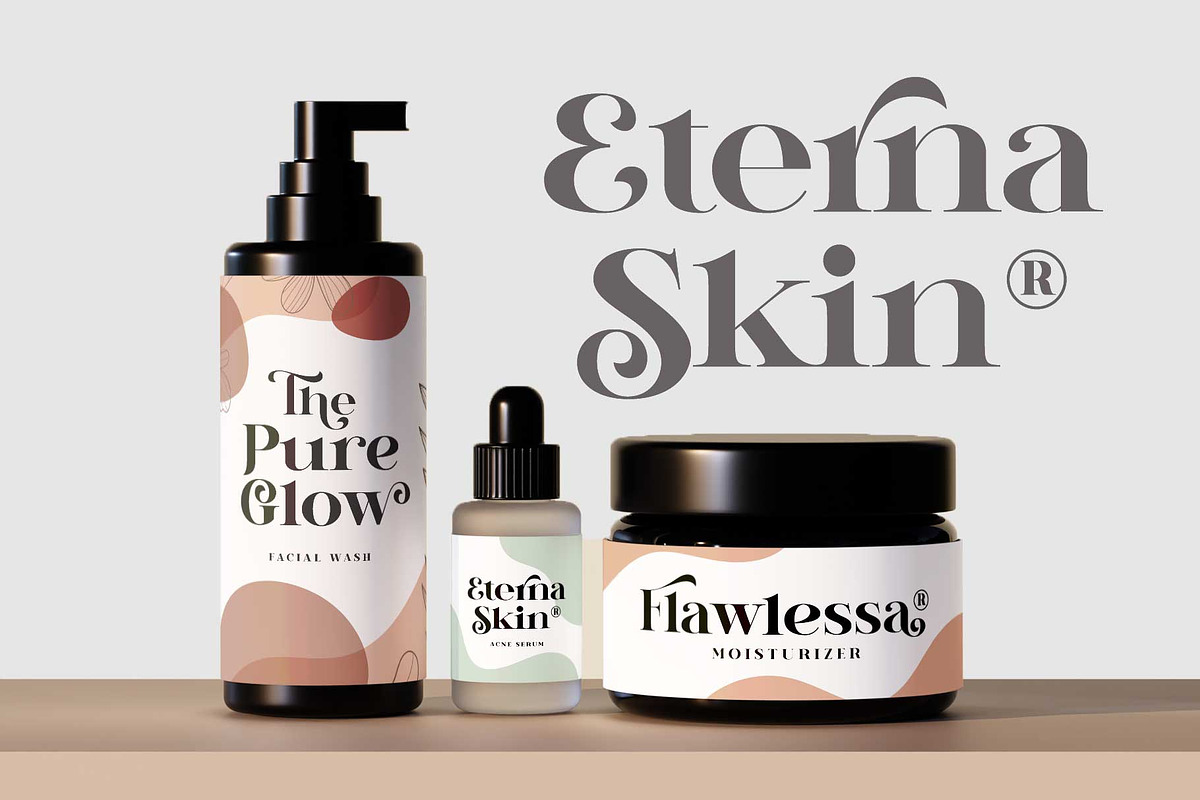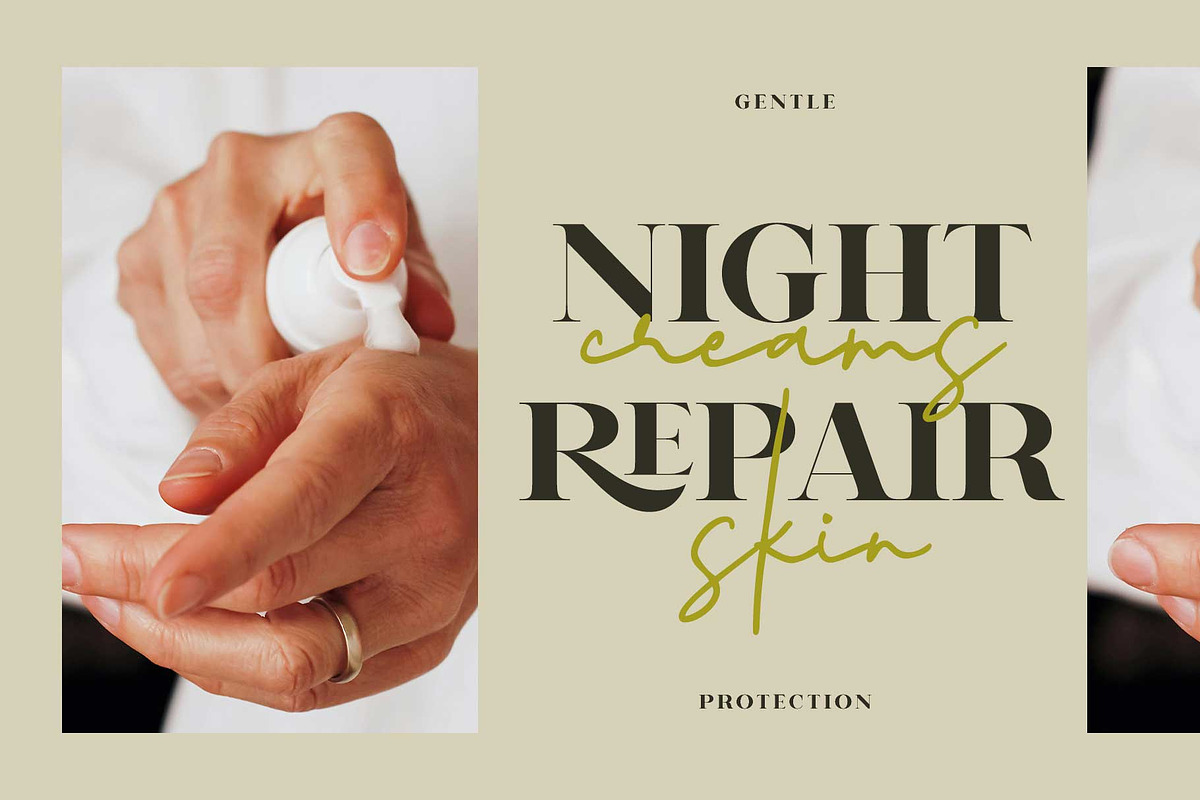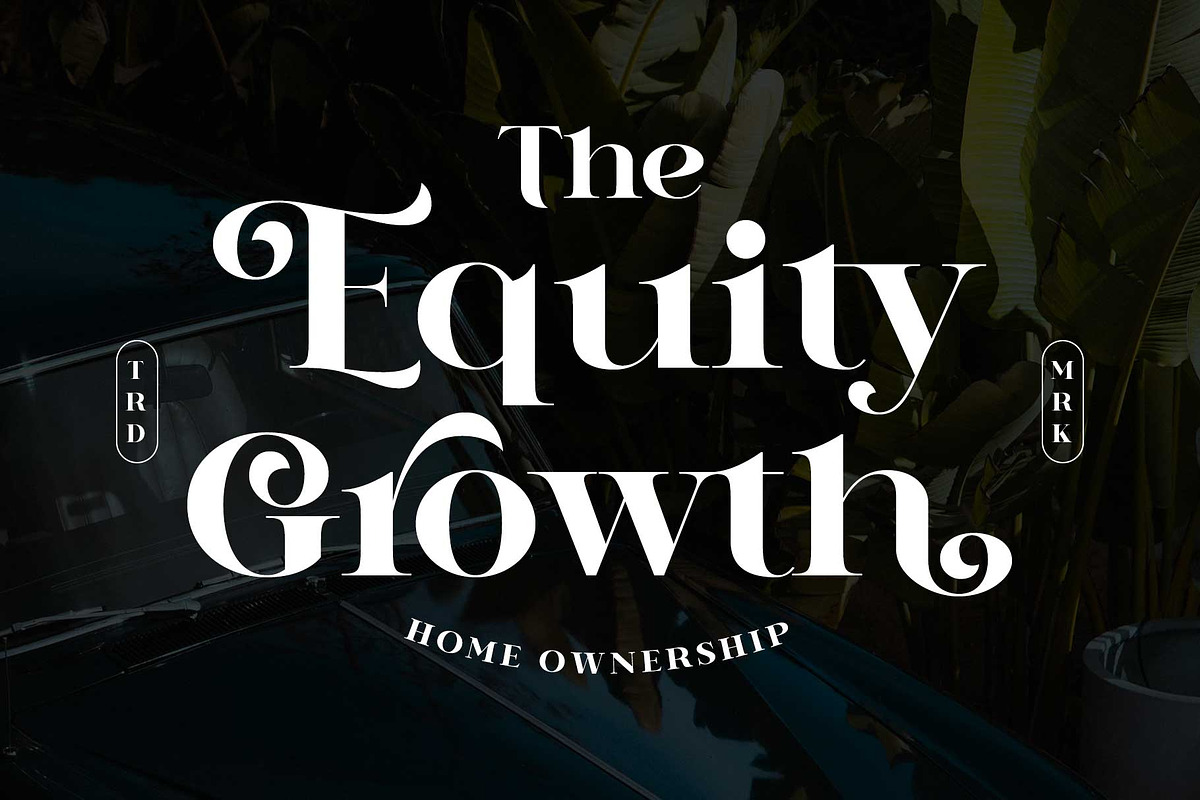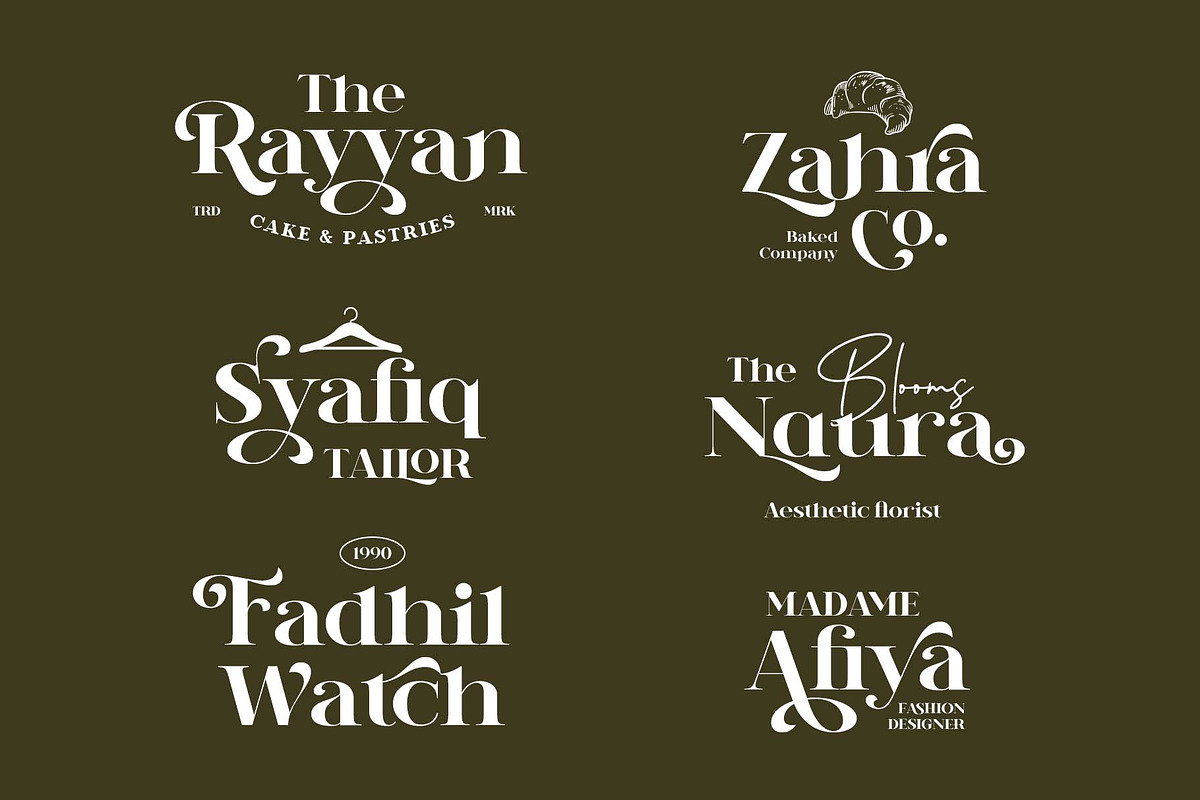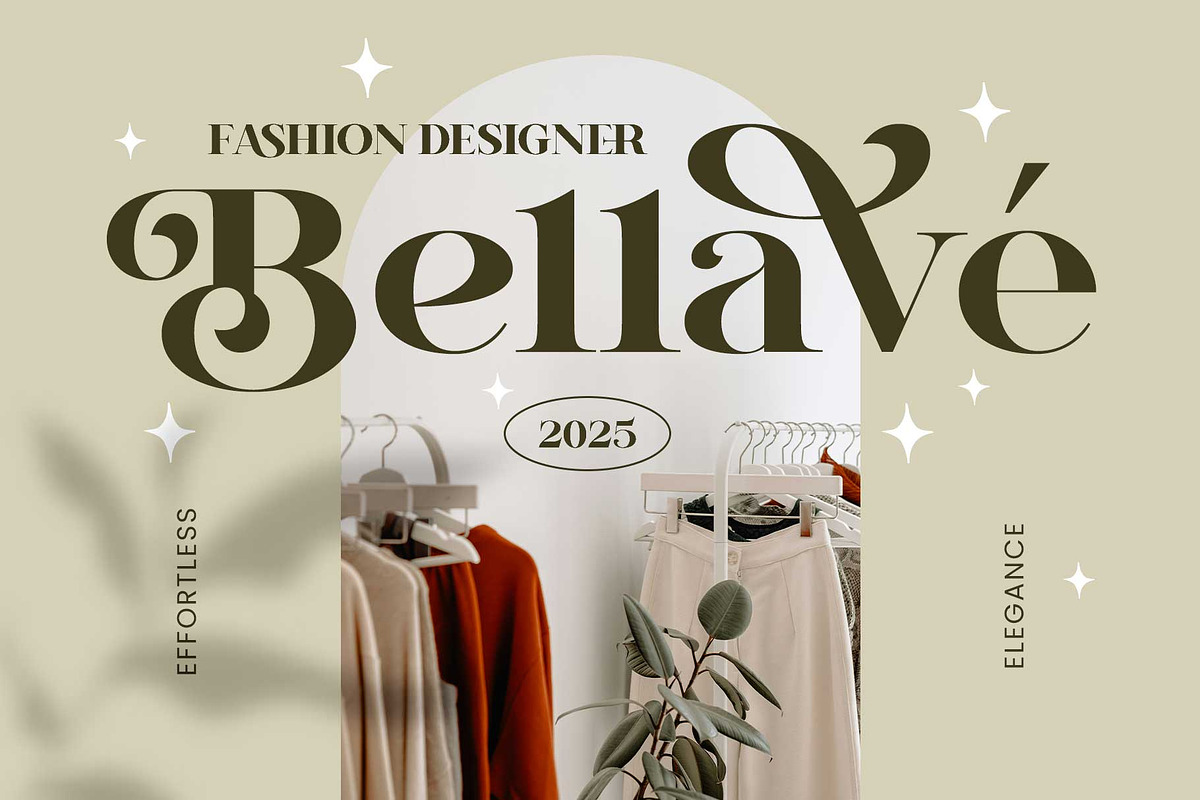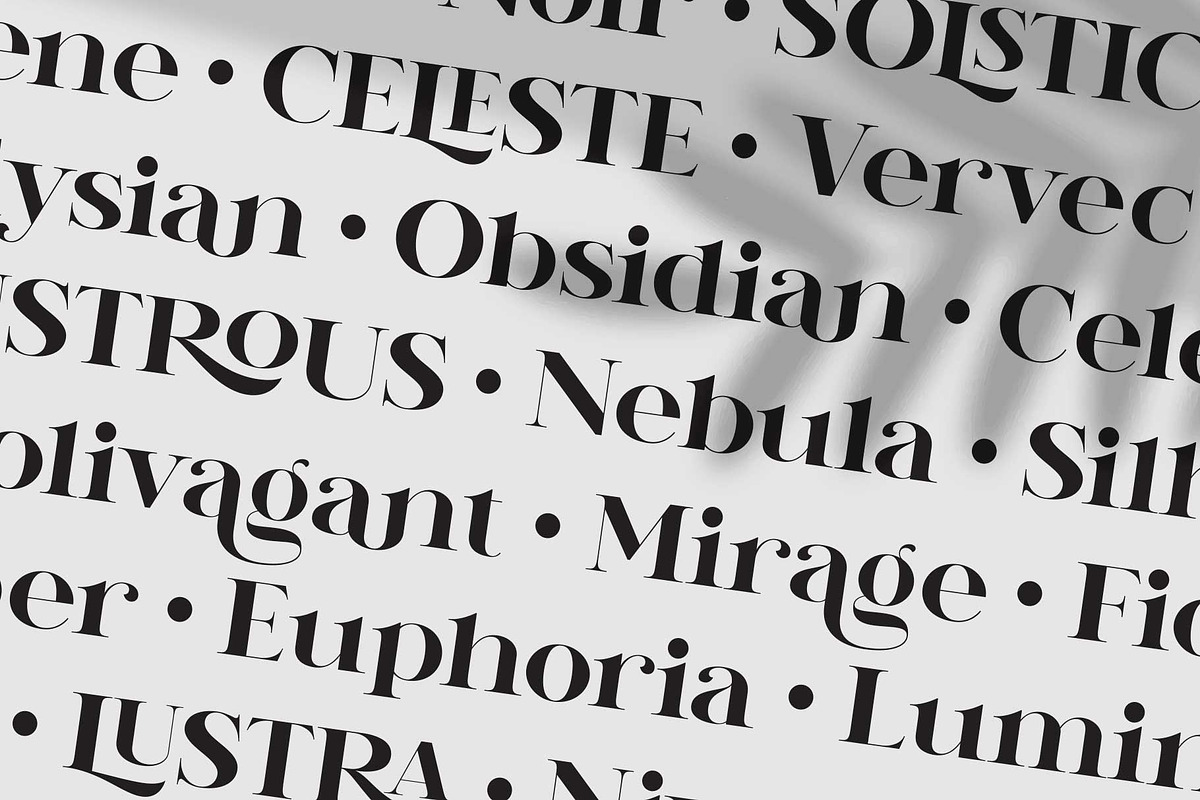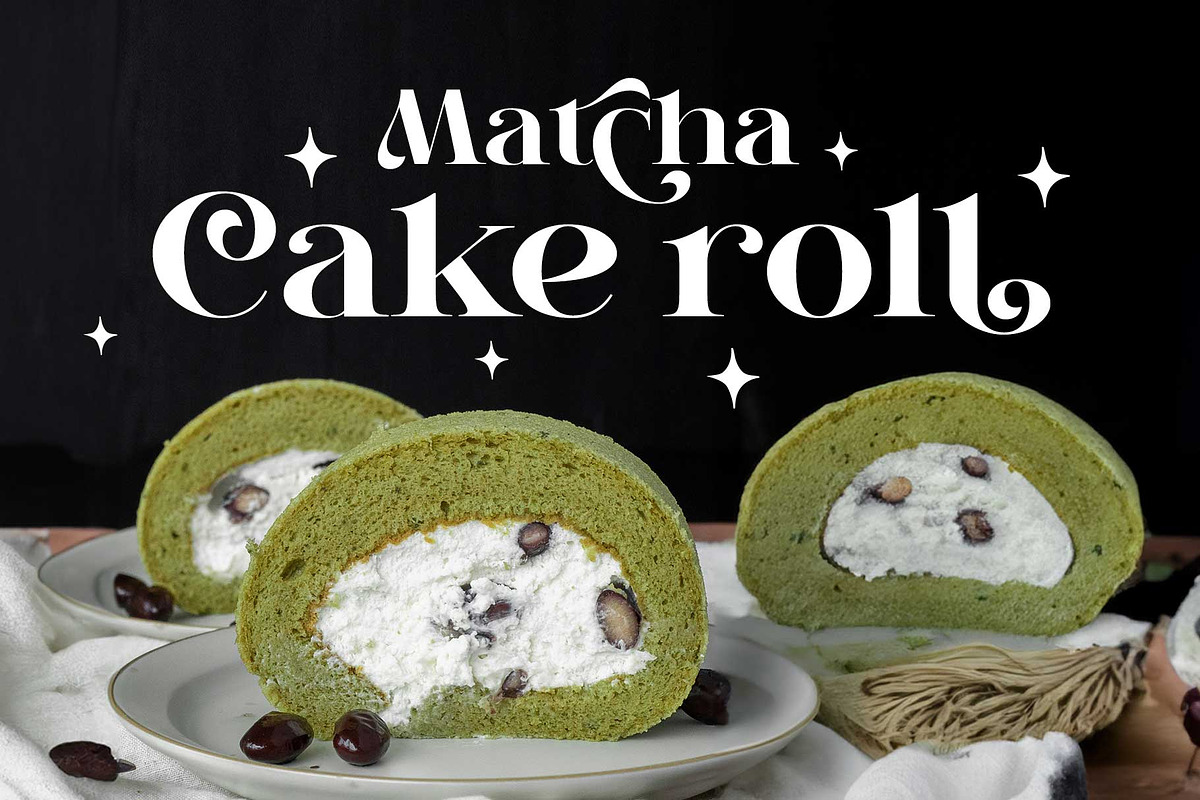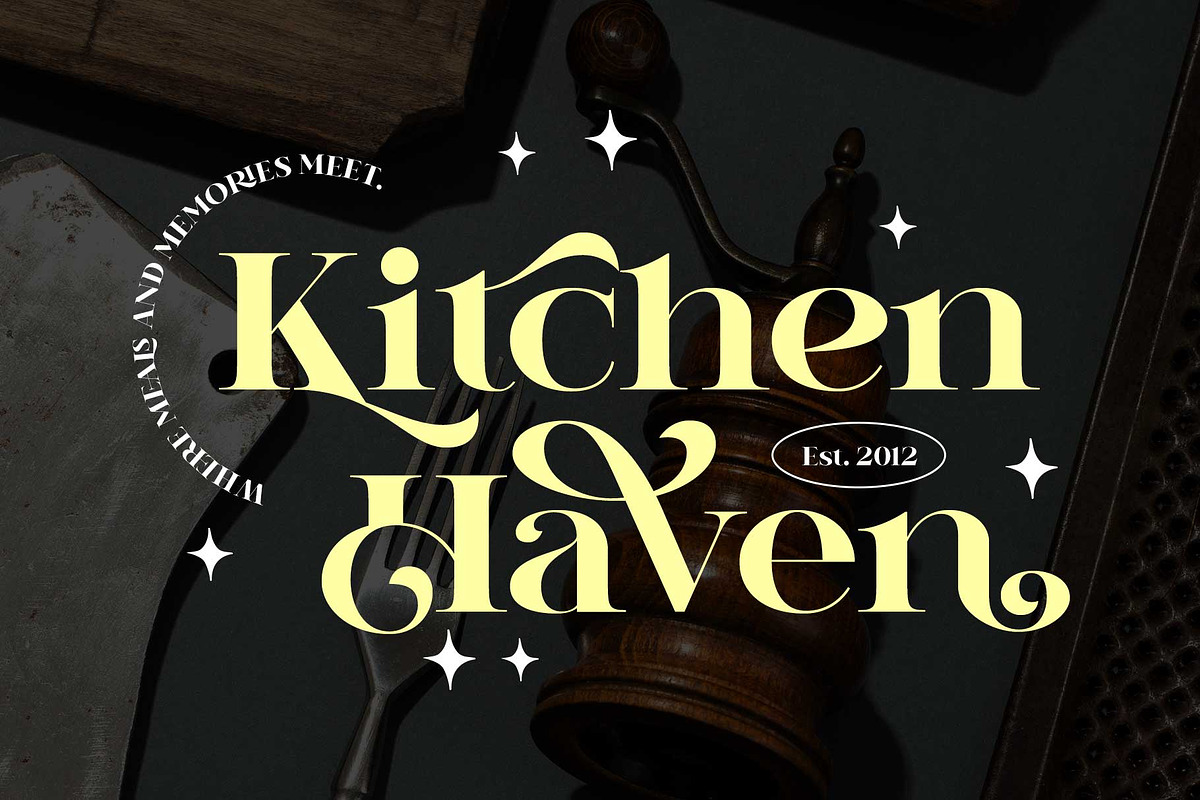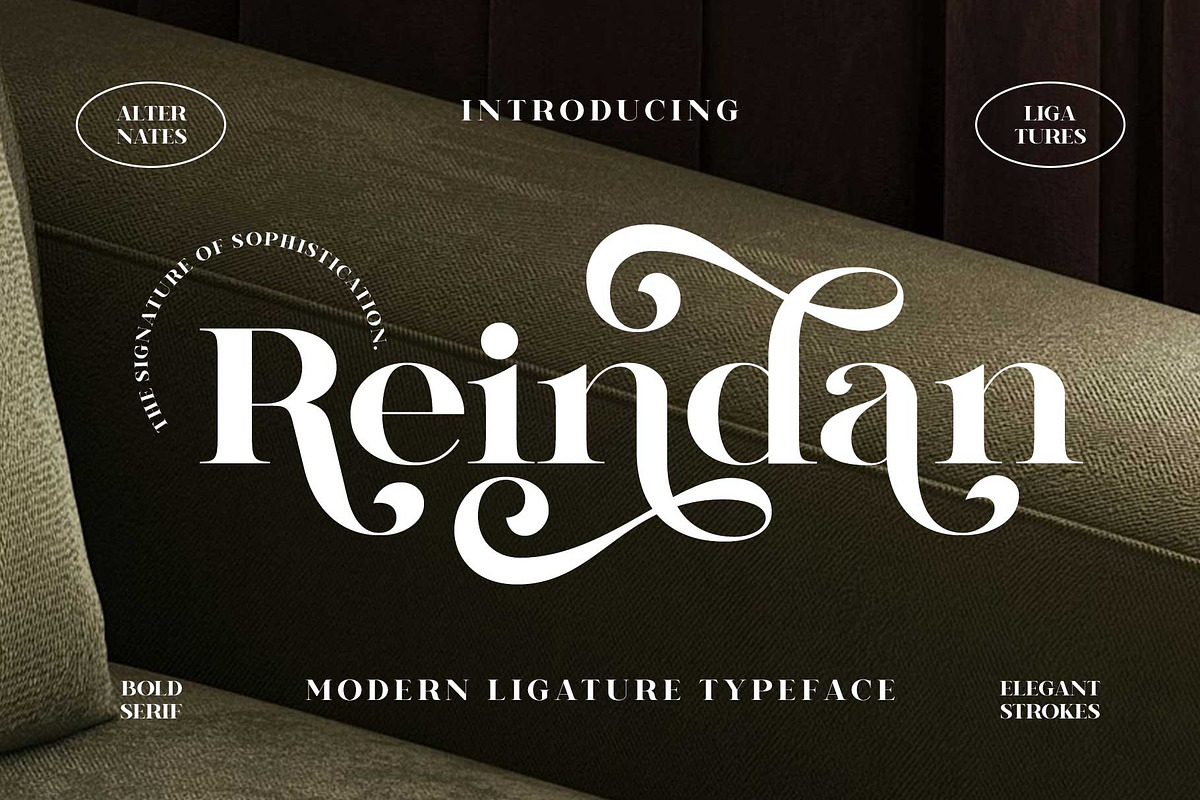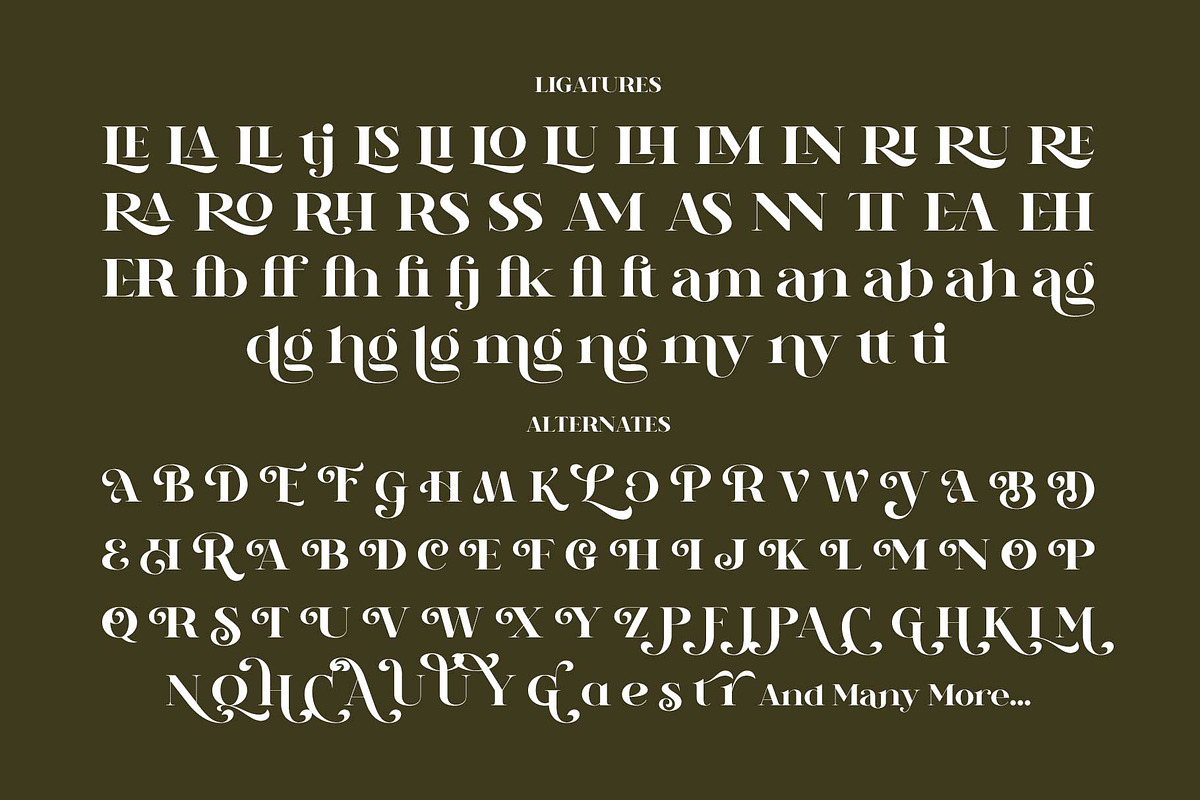
Reindan - Beautiful Bold Serif
introducing Reindan a beautiful bold serif typeface with a bunch of decorative swashes. Inspired by the modern fashion and classic typography.
Reindan is a bold serif display, its visualize elegance, luxurious and beauty. You can apply for many things such as logotype, wedding, invitation, cards, magazine, fashion, poster, social-media, and many more!